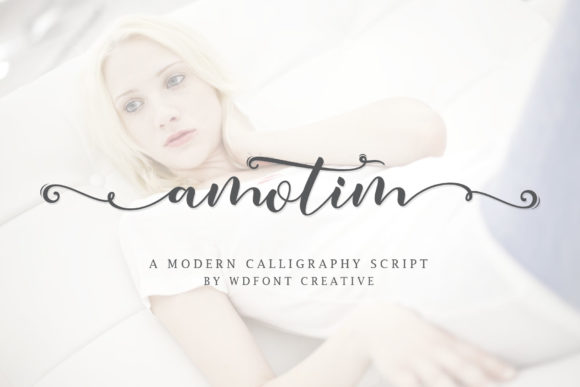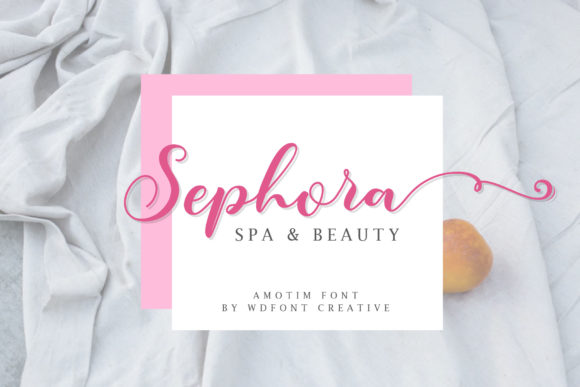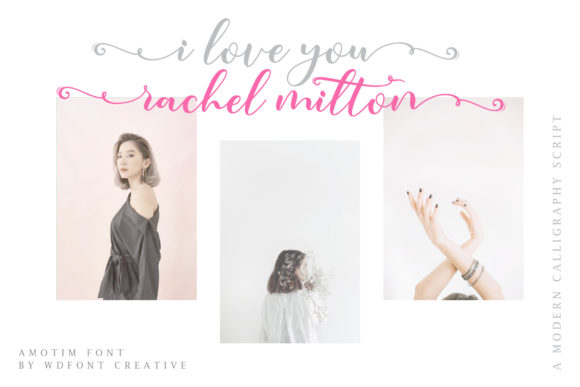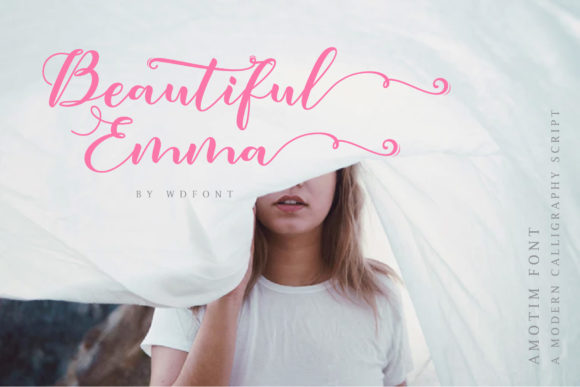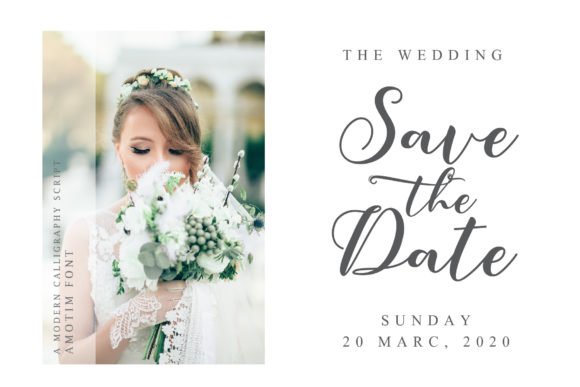
Amotim Font
About Amotim Font
Amotim is a fresh, light and breezy handwritten font with a romantic feel. It will inspire any new creative project with its unique charm.